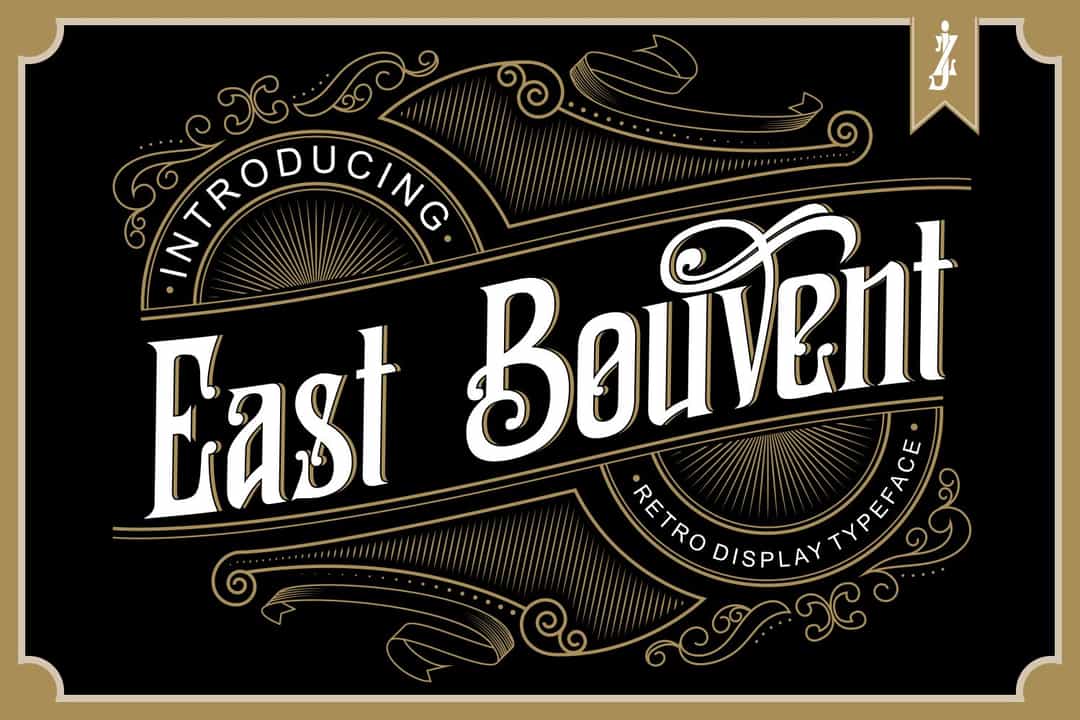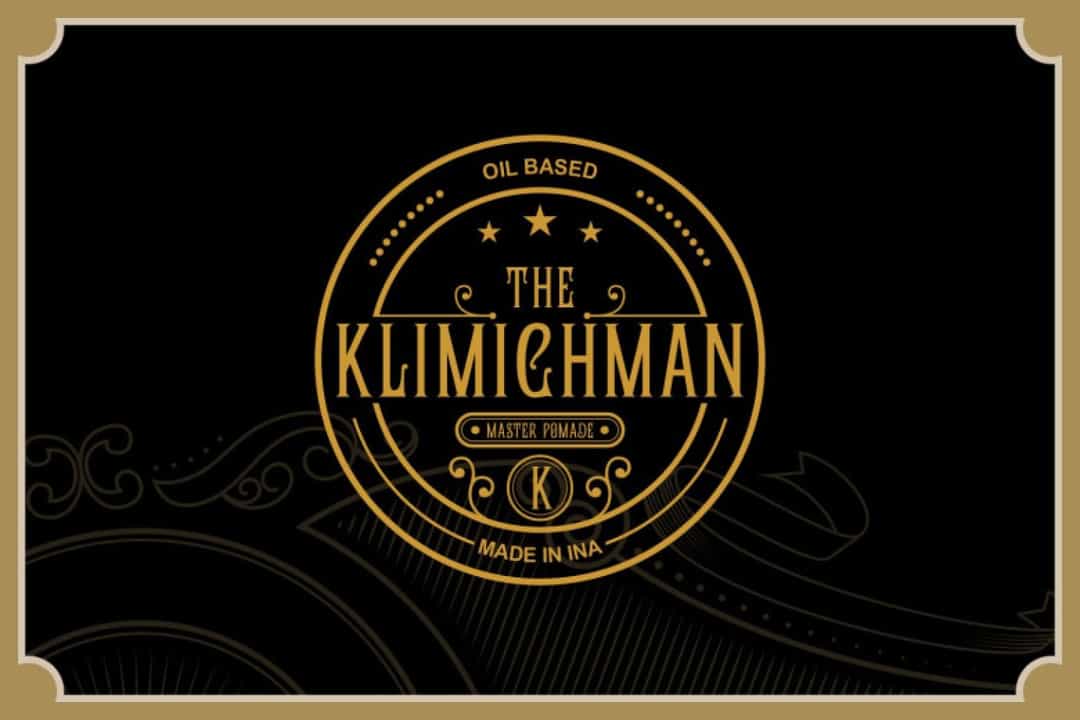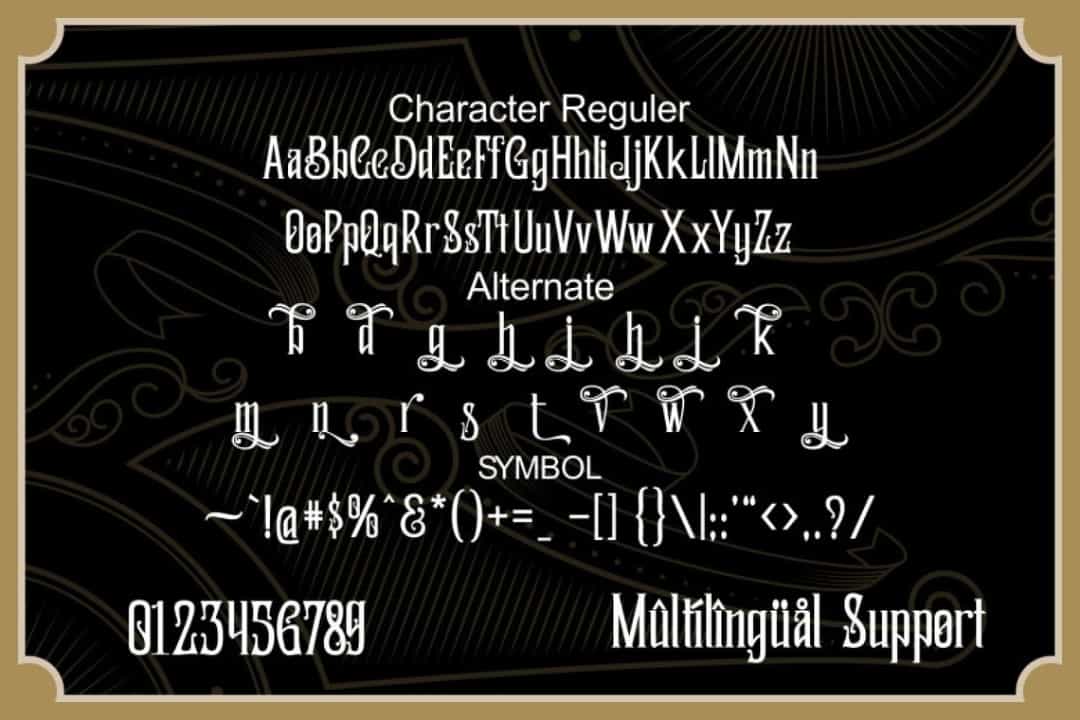
East Bouvent draws its inspiration from classic luxury lettering, retro vintage illustrations and Victorian calligraphy styles of old. This retro East Bouvent style can be applied to many different applications such as product labeling or advertising campaigns, interior decoration projects and much more.